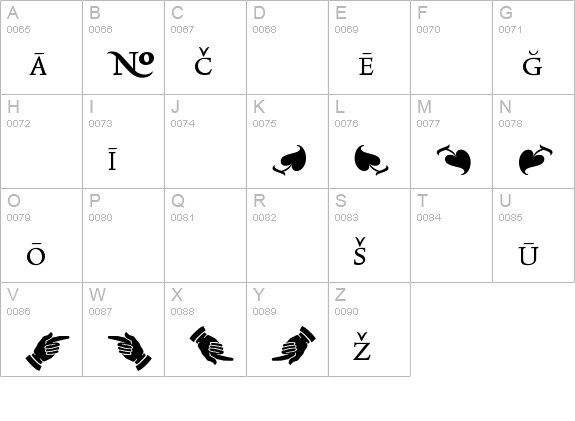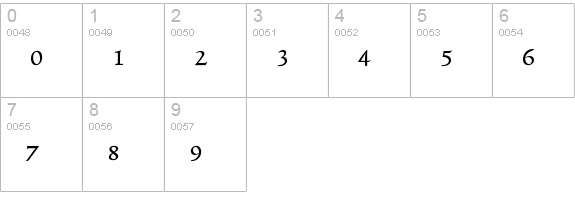
TriniteNo3-RomanCondPi is a sleek and stylish font that effortlessly combines elegance with modernity. Its condensed design is perfect for creating a sophisticated and refined look in any design project. With its clean lines and balanced proportions, this font exudes a sense of professionalism and attention to detail. The TriniteNo3-RomanCondPi font features a unique blend of classic Roman letterforms with a contemporary twist. The letters are meticulously crafted, ensuring a smooth and harmonious flow that is pleasing to the eye. Each character has been carefully designed to maintain legibility, even at smaller sizes, making it a versatile choice for both print and digital designs. What sets TriniteNo3-RomanCondPi apart is that it is not only visually appealing but also freely available to download. You can easily access this font at FontsMarket.com, where you can explore a wide variety of other high-quality fonts as well. Whether you are a professional designer or an enthusiast, TriniteNo3-RomanCondPi provides you with the creative freedom to elevate your projects to the next level. Whether you are working on branding materials, advertisements, book covers, or any other design project, TriniteNo3-RomanCondPi will add a touch of sophistication and elegance to your work. Its timeless design and versatile nature make it suitable for a wide range of applications, from fashion and beauty to corporate and editorial designs. Download TriniteNo3-RomanCondPi today, and unleash your creativity with this free font available at FontsMarket.com. Elevate your designs and make a lasting impression with the timeless elegance of TriniteNo3-RomanCondPi.